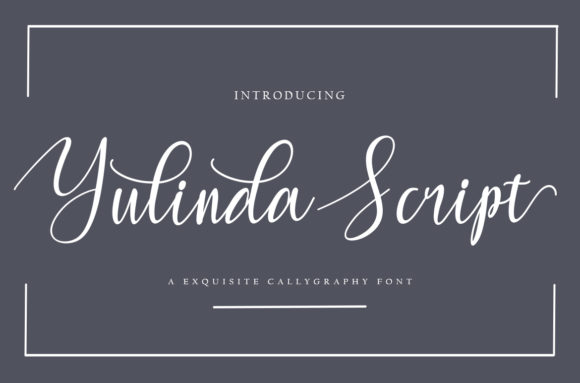
Journey into the enchanting realm of Yulinda - a script font family that evokes a sense of timeless elegance and sophistication. With its graceful lines and captivating curves, Yulinda is more than just a collection of letters; it's an artistic masterpiece that will transform your creative vision into a visual symphony. Experience the magic of Yulinda and let your imagination run wild.
Born from the inspiration of classic calligraphy, Yulinda embodies the essence of timeless beauty. Its flowing strokes and delicate serifs add a touch of class and sophistication to any design project. Whether you're crafting logos, invitations, branding materials, or social media posts, Yulinda will elevate your designs, leaving a lasting impression on your audience.
Immerse yourself in the world of Yulinda and unleash your creativity. Explore endless possibilities with this versatile font family, perfect for a wide range of design styles. From elegant wedding invitations to captivating social media graphics, Yulinda seamlessly adapts to any aesthetic. Its charm lies in its versatility, making it a must-have for designers seeking a font that can effortlessly transform their ideas into visual masterpieces.
With Yulinda, you hold the key to unlocking a world of refined typography. Its elegant curves and meticulous details will captivate your audience, leaving them spellbound by the beauty of your designs. Discover the transformative power of Yulinda today and elevate your creative journey to new heights.